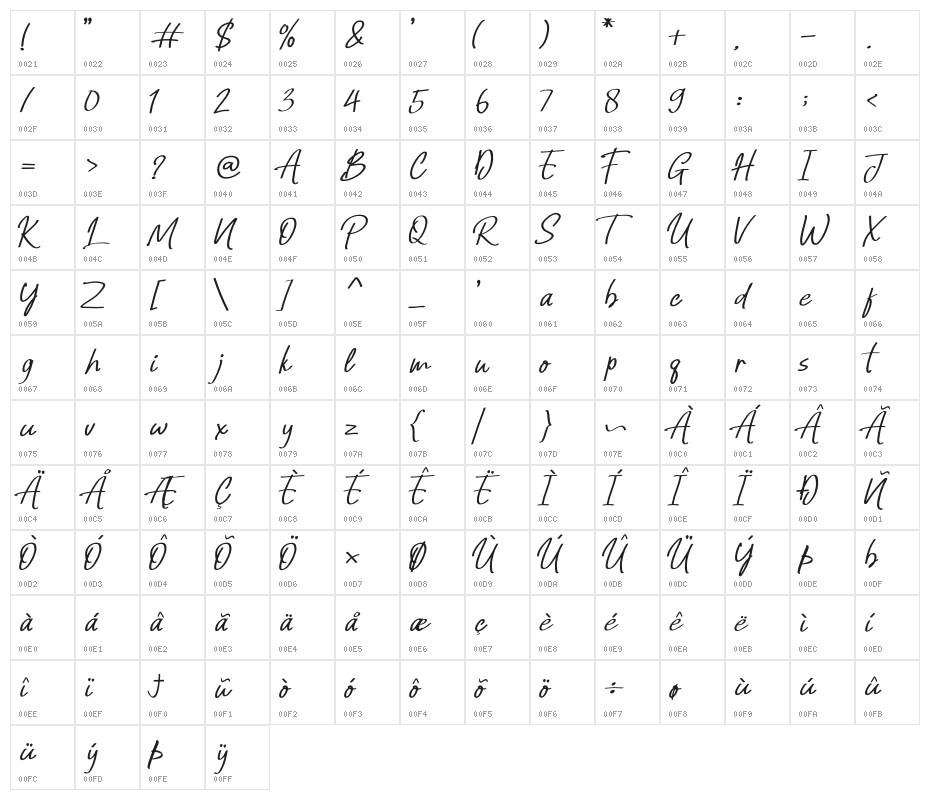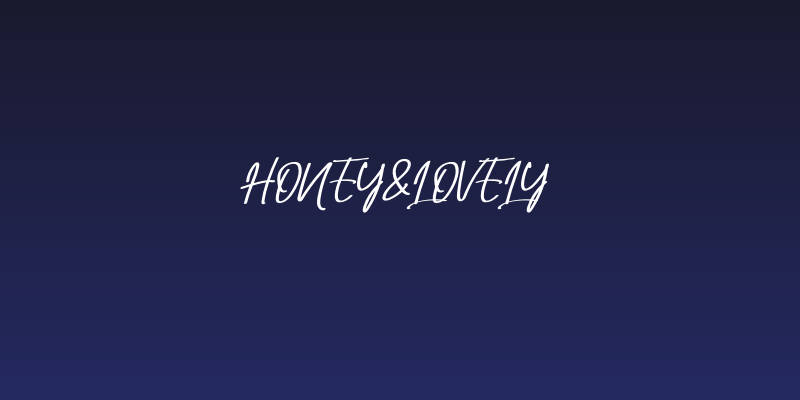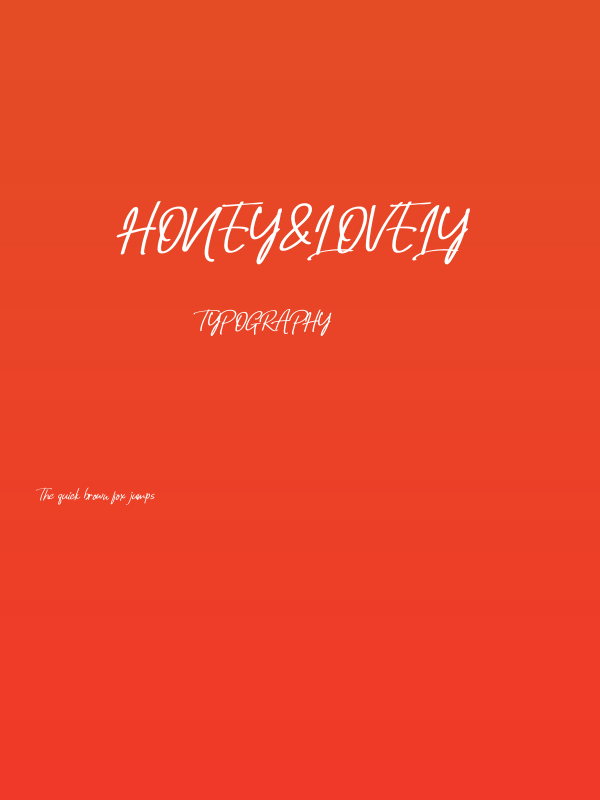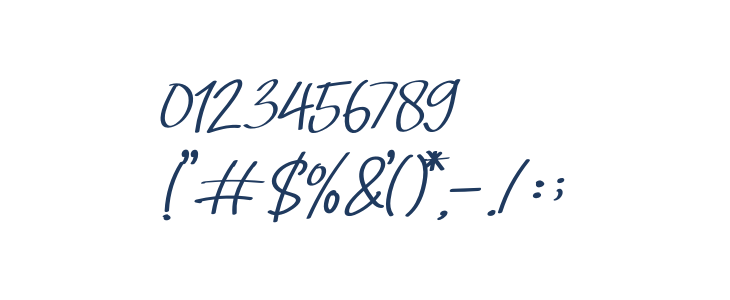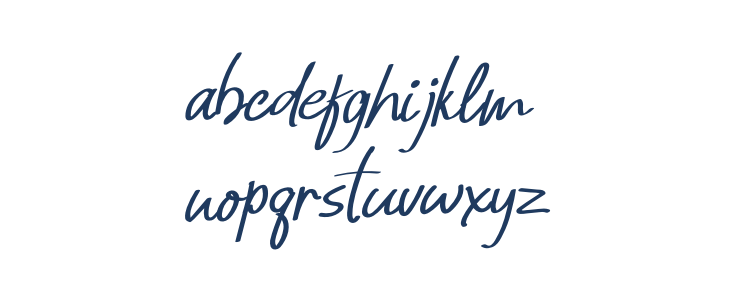
Honey&Lovely Font
Honey&Lovely Description
This font exudes a lively and playful handwritten style, characterized by its flowing, cursive script. The letters are elegantly connected, giving it a natural and personal touch. The uppercase letters are bold and slightly slanted, while the lowercase letters maintain a consistent flow, enhancing readability. Numbers and special characters are designed to match the overall aesthetic, providing a cohesive look. The strokes are smooth and moderately thick, offering a balanced contrast that makes the text stand out without being overwhelming.
| Proposed Projects | Ideal for wedding invitations, greeting cards, personal branding, and creative projects that require a personal touch. |